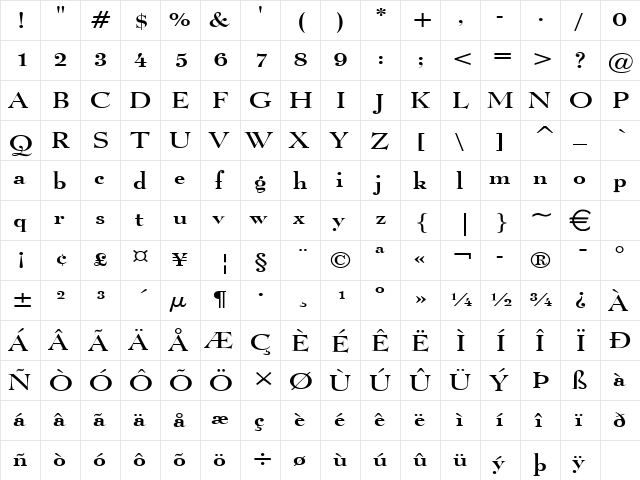
LucianoWide Normal
Design Context for LucianoWide Typeface
LucianoWide takes a measured approach to typography — its balanced proportions and neutral character make it a reliable workhorse for both digital and print work.